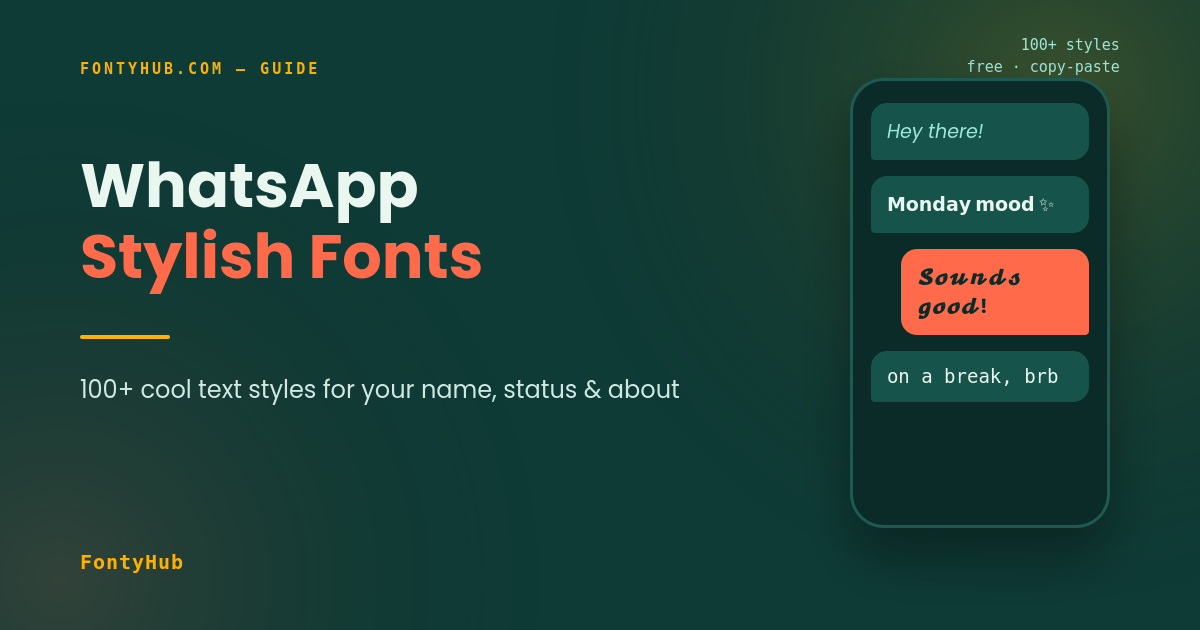
WhatsApp Stylish Fonts – 100+ Cool Text Styles (2026)
WhatsApp doesn’t give you a font picker anywhere in the app — but scroll through most people’s contact list and you’ll still spot names and statuses in bold, cursive, or fancy text. WhatsApp stylish fonts work through Unicode characters, not a hidden app setting, and this guide shows exactly how to get them for your name, status, and About section.
Why People Use Stylish Fonts on WhatsApp
WhatsApp shows the same plain system font to everyone by default. A styled name or status is one of the only ways to personalize how you appear in someone’s chat list, without changing your photo. It’s common for:
- Making your display name stand out in group chats
- Giving your “About” line a bit of personality
- Writing a status update in a way that feels more expressive than plain text
WhatsApp shows the same plain system font to everyone by default. A styled name or status is one of the only ways to personalize how you appear in someone’s chat list, without changing your photo. It’s common for:
- Making your display name stand out in group chats, especially large ones where dozens of plain names blend together
- Giving your “About” line a bit of personality instead of the default “Hey there! I am using WhatsApp”
- Writing a status update in a way that feels more expressive than plain text
- Branding a business or community group name so it’s instantly recognizable
- Signaling a mood, interest, or personal aesthetic (gamer, creative, minimalist, and so on) at a glance
For creators and small business owners specifically, a styled name can double as a mini form of branding — the same way a signature font does on a website or Instagram bio.
How to Get WhatsApp Stylish Fonts
For your Name
- 𝐑𝐚𝐡𝐮𝐥 ★
- 𝓐𝓪𝓵𝓲𝔂𝓪❀
For your About
- 𝘭𝘪𝘷𝘪𝘯𝘨 𝘰𝘯 𝘤𝘰𝘧𝘧𝘦𝘦 & 𝘨𝘰𝘰𝘥 𝘷𝘪𝘣𝘦𝘴
- 𝕟𝕠𝕥 𝕒𝕧𝕒𝕚𝕝𝕒𝕓𝕝𝕖, 𝕥𝕣𝕪 𝕒𝕘𝕒𝕚𝕟 𝕝𝕒𝕥𝕖𝕣
For Status Text
- 𝗺𝗼𝗻𝗱𝗮𝘆 𝗺𝗼𝗼𝗱 𝗮𝗰𝘁𝗶𝘃𝗮𝘁𝗲𝗱
- ✧ 𝘨𝘳𝘢𝘵𝘦𝘧𝘶𝘭 𝘧𝘰𝘳 𝘵𝘩𝘦 𝘴𝘮𝘢𝘭𝘭 𝘵𝘩𝘪𝘯𝘨𝘴 ✧
All of these are standard Unicode characters, so they show up correctly whether the person you’re messaging is on Android, iPhone, or WhatsApp Web.
Stylish Status Text Examples
A few ready-to-use status lines in different tones:
- 𝒷𝓊𝓈𝓎 𝒷𝓊𝒾𝓁𝒹𝒾𝓃𝑔 𝓈ℴ𝓂𝑒𝓉𝒽𝒾𝓃𝑔 𝑔ℴℴ𝒹
- 𝗢𝗻 𝗮 𝗯𝗿𝗲𝗮𝗸 — 𝗯𝗮𝗰𝗸 𝘀𝗼𝗼𝗻
- ⋆。°✩ 𝘨𝘰𝘰𝘥 𝘵𝘩𝘪𝘯𝘨𝘴 𝘢𝘳𝘦 𝘤𝘰𝘮𝘪𝘯𝘨 ✩°。⋆
Things to Keep in Mind
- Very dense Unicode styles can appear as small boxes (□) on older phones — preview before saving
- WhatsApp’s character limit for “About” is short (139 characters), so pick compact styles for that field
- Group names support stylish fonts too, useful for admins who want a group to stand out in a busy chat list
Yes, since they’re Unicode text, they display the same across mobile, web, and desktop versions.
No, styled text is treated as regular text by WhatsApp’s servers and delivers normally.
Yes, the same copy-paste method works for broadcast lists, channels, and community names.